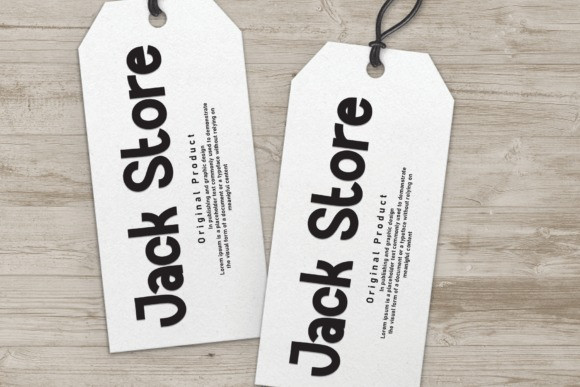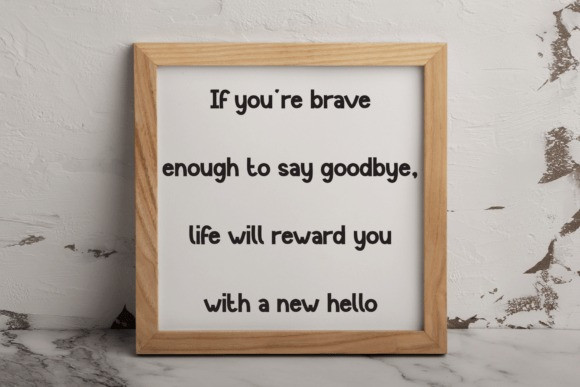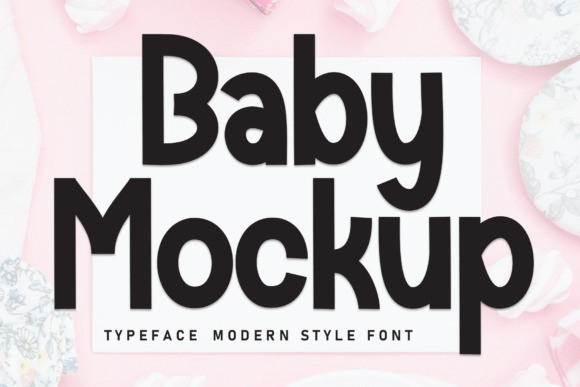
Baby Mockup Font
Baby Mockup Font is a sweet and friendly handwritten font. Cute and versatile, this font is ideal for writing wedding invitations, cards, or any other design that might need a fun touch!